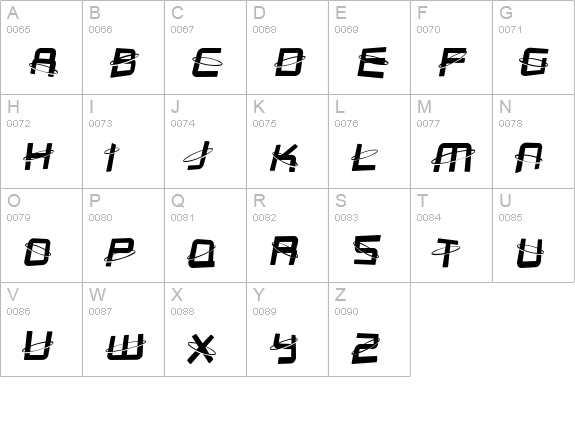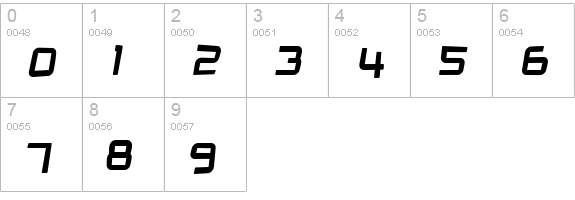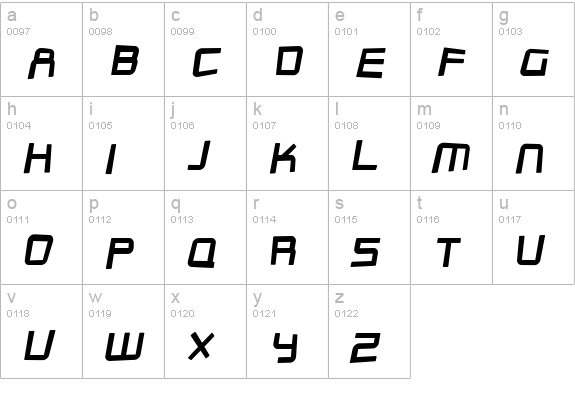
SF Outer Limits Distorted Font Details
SF Outer Limits Distorted is a mesmerizing font that takes typography to the next level. With its unique and captivating design, it adds a sense of intrigue and mystery to any text. The letters are distorted, giving them a futuristic and otherworldly appearance that is perfect for science fiction projects or any design that aims to push the boundaries of creativity. This font is not only visually stunning but also highly versatile. It can be used for various purposes, including posters, book covers, movie titles, album art, and more. Its distorted nature adds a sense of chaos and unpredictability, making it the ideal choice for projects that want to stand out from the crowd. One of the best aspects of SF Outer Limits Distorted is that it is freely available to download at FontsMarket.com. This means that anyone can access and use this font without any restrictions. Whether you are a professional designer or a hobbyist, you can enjoy the creative possibilities that this font offers at no cost. The intricate details and unique distortions in SF Outer Limits Distorted make it a font that demands attention. Its bold and daring design will make your text pop, instantly grabbing the viewer's interest. It is a font that brings an element of the unknown to your designs, allowing you to explore new horizons and push the boundaries of visual expression. So, if you are looking for a font that breaks free from convention and adds a touch of intrigue to your designs, SF Outer Limits Distorted is the perfect choice. Download it freely at FontsMarket.com and let your creativity soar to new heights.